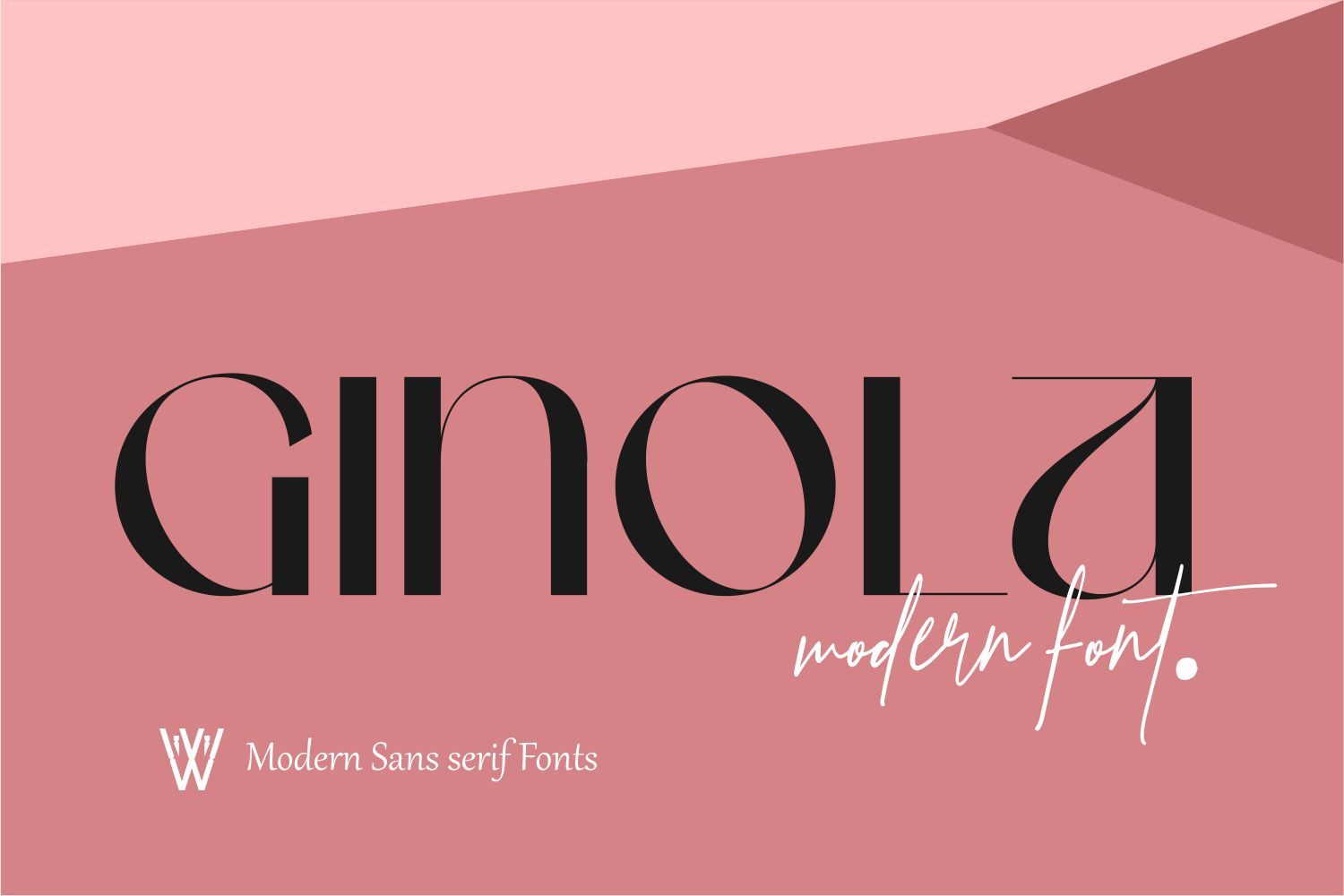
Ginola Font | Beautifull Sans Serif
The Ginola Font is a stunning sans-serif typeface that embodies modern elegance and sophistication. With its clean lines and balanced proportions, this font adds a touch of beauty to any design project. Whether you’re creating branding materials, website headers, or editorial layouts, the Ginola Font brings a sense of refined charm that captivates the viewer. Its versatility makes it suitable for a wide range of applications, ensuring your designs stand out with a touch of contemporary beauty.